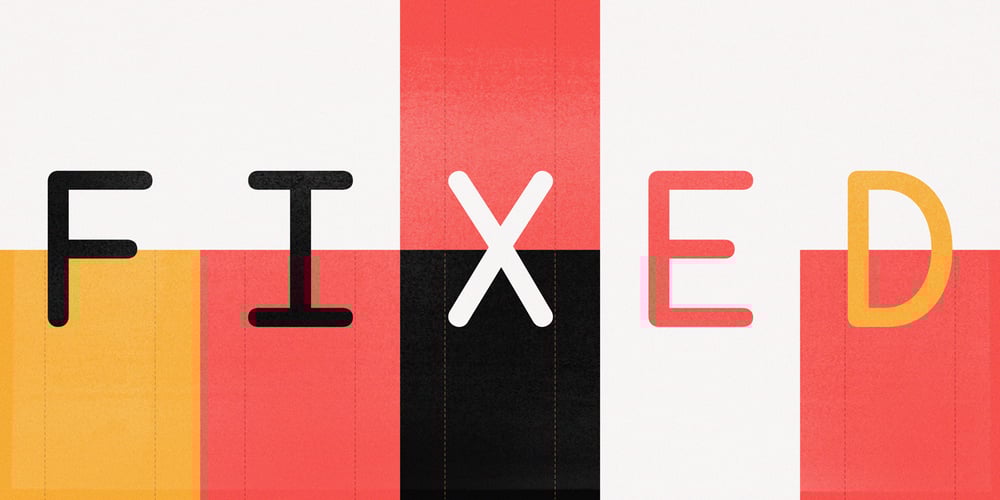
Fixed Font Family was designed by Sumpatha Jadee, Vorathit Kruavanichkit and published by Produce. Fixed contains 4 styles and family package options. Every letters in this font family has a fix width. It has a softer take on the typical monospace fonts. The constraint has create an interesting and playful look on letters especially the extra long ones.